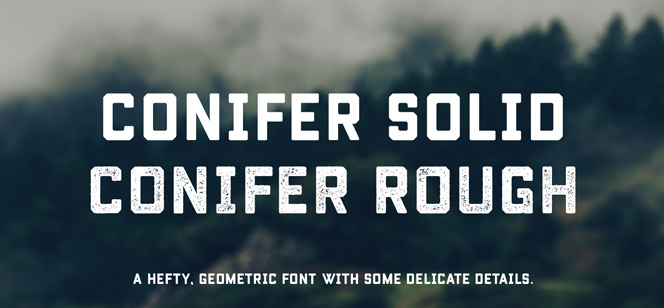
Conifer font
Conifer font is a geometric uppercase Sans. Designed mostly for display use where high contrast and strong presence are probably the most important thing here we find an attractive addition to its overall look – Conifer is designed in two styles – normal (SOLID) and textured (ROUGH). The normal style looks more common and even ordinary, while the textured one seems to be one of those fonts where every simple effect is able to do miracles. The texture is very organic with well balanced level of contrast which means that it is visible and noticeable without dominating the geometry of the characters. It also adds some extra authenticity to your work which practically makes your design strong and attractive for the audience. Conifer as we said above is designed as a display typeface and preferably used at large sizes on t-shirts, vehicles branding, signboards, posters, etc. Letterpress and silk screen printing are its best friends and overprints and large trapping are its closest relatives. Excellent for screen use too – e-books, apps, and web sites.
Conifer font is designed and published in 2014 by Ryan Keightley. Check also his debuting font Sparkle Script.